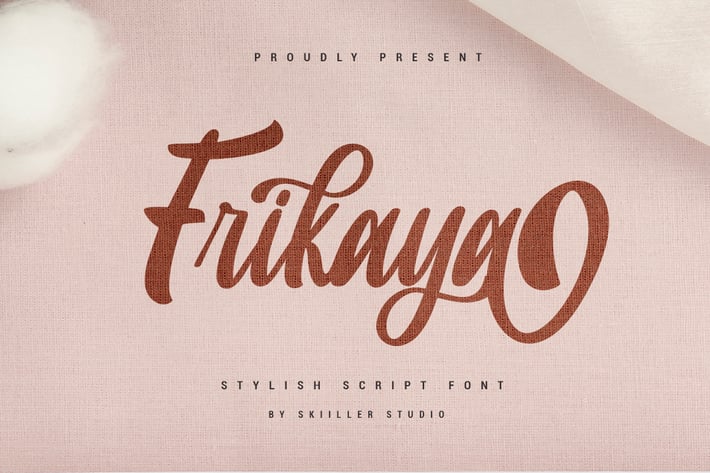
Frikaya - Stylish Script Font
Frikaya is a Modern script font combined with a rapi so it looks elegant, suitable to support a variety of designs and your business
+ Stylistic Alternate
+ Stylistic set 01
+ Ligature
+ Basic Latin Language Support (AÀÁÂÃÄÅCÇDÐEÈÉÊËIÌÍÎÏÑOØÒÓÔÕÖUÙÜÚÛWYÝŸÆß )